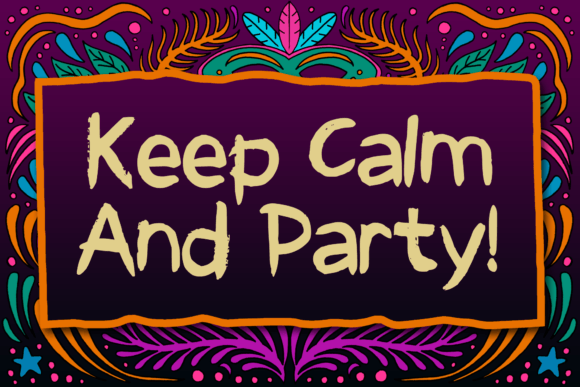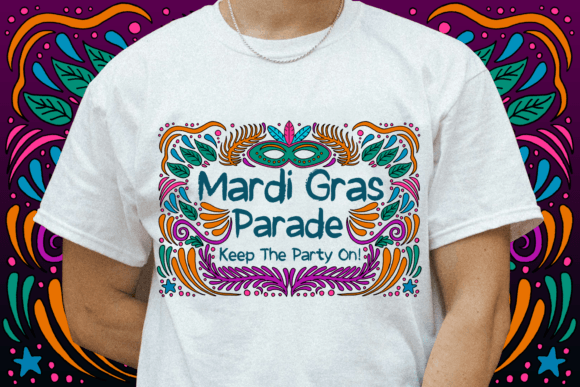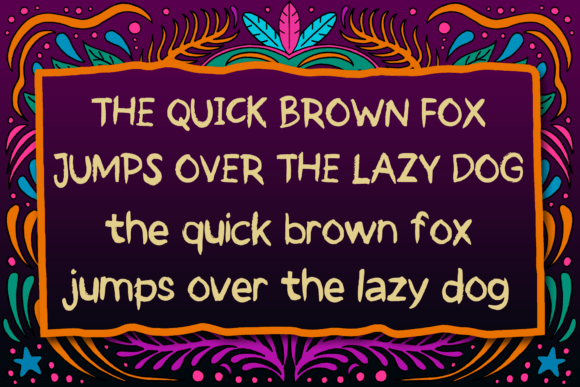
Introduction to Mardi Gras Brush Font
Mardi Gras Brush is an ink brush sans serif font.
You can use it for anything ranging from t-shirts, kids’ book designs, and greeting cards to stickers and posters, or anything that needs a casual touch Fall in love with its incredibly versatile style and use it to create lovely designs.
Mardi Gras Brush Font offers exceptional quality and versatility, making it a valuable addition to your design toolkit. Whether you’re creating for personal projects or commercial use, Mardi Gras Brush Font delivers professional results.